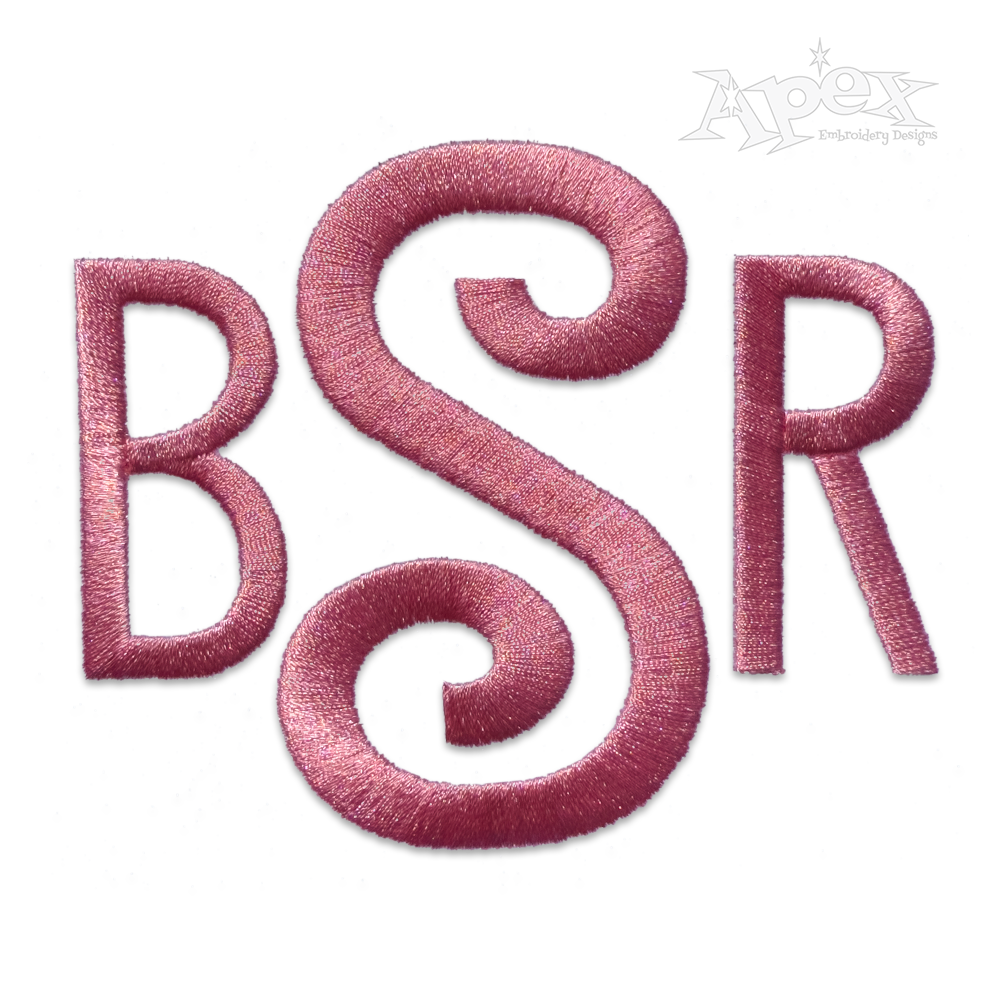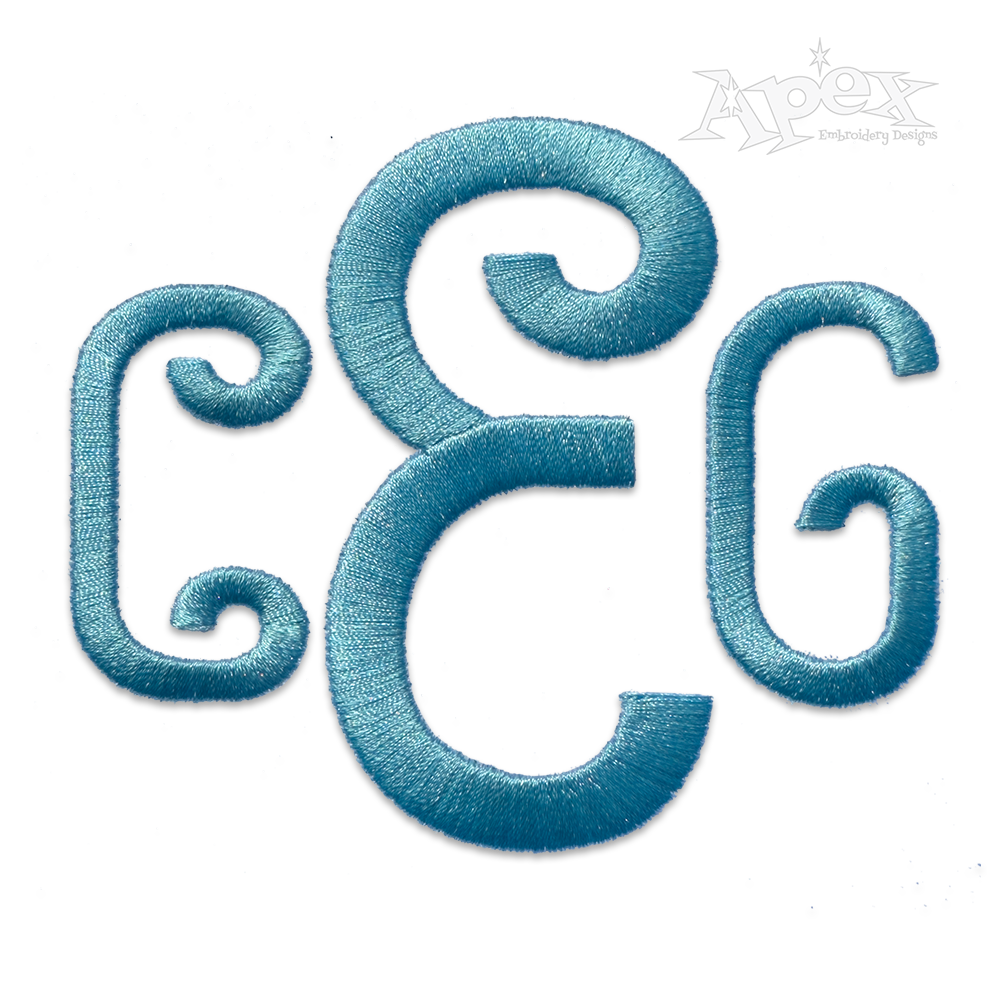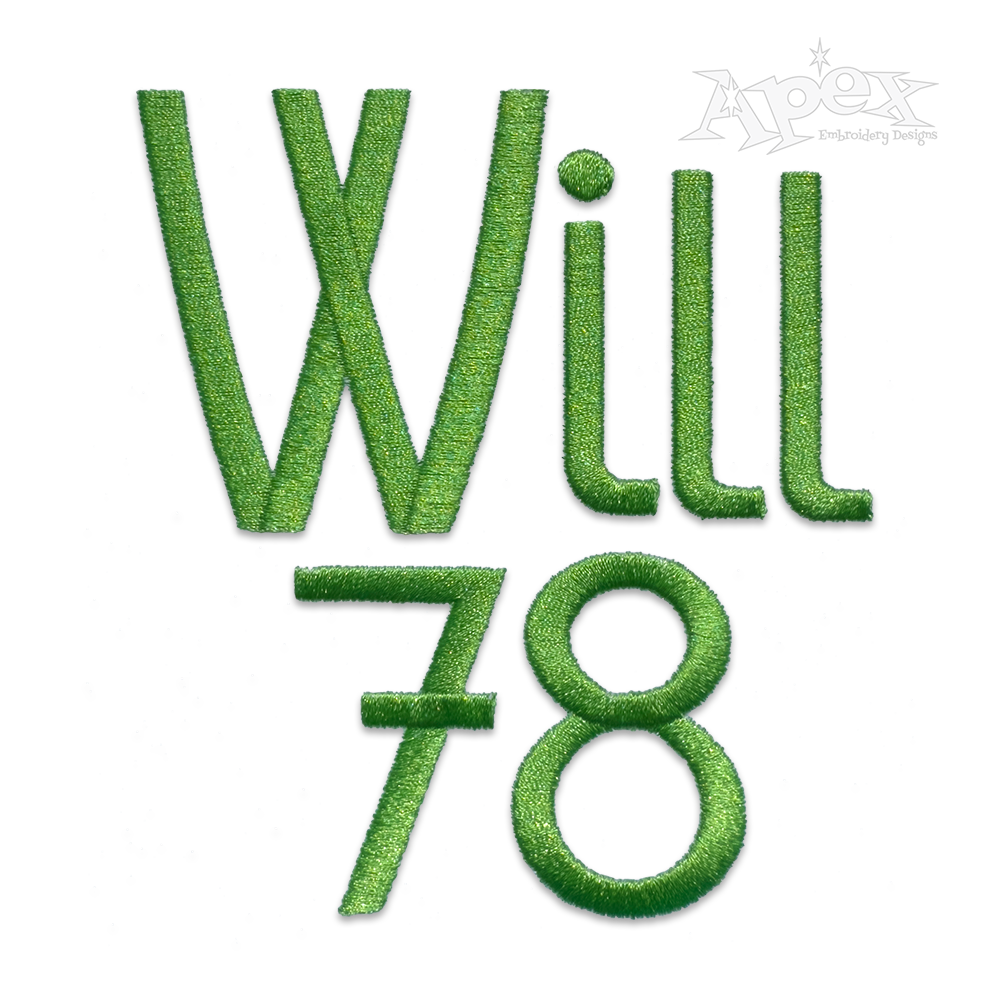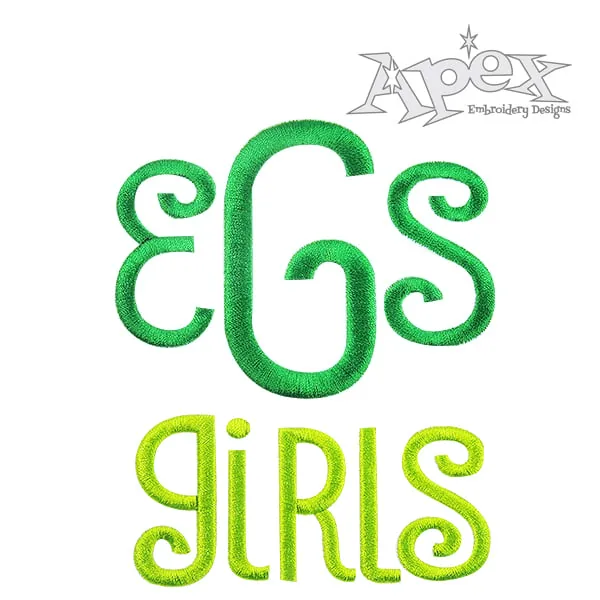
Baby Girl Embroidery Fonts
When digitizing the Baby Girl embroidery font, we set out to capture the playful innocence and tender warmth of early childhood. Every glyph dances with joyful, spiral flourishes and sweet swashes, echoing the natural whimsy of ribbon curls and soft nursery lullabies. Balanced with an unwavering, bold legibility, this charming alphabet was thoughtfully designed to transform everyday baby textiles into treasured family heirlooms, making every personalized keepsake feel like a lovingly handcrafted work of art.
Project Ideas for Baby Girl Embroidery Fonts
- Heirloom Layette & Onesies: Stitch a darling initial right over the heart of soft organic cotton bodysuits or embroidered footie pajamas for an unforgettable shower gift.
- Personalized Swaddle Blankets & Crib Quilts: Create a grand centerpiece with a 3-inch name or birth monogram embroidered into washed linen or waffle-knit cotton.
- Bespoke Nursery Keepsakes: Personalize canvas nursery storage bins, customized rocking chair pillows, and custom diaper caddies.
- Milestone Photography Props: Combine the clean numerals with the letterforms to stitch milestone blanket markers that celebrate baby's growth month by month.
- Toddler Sun Hats & Beach Totes: Add durable, playful lettering to wide-brim baby sun hats, seersucker swim covers, and personalized preschool tote bags.
- Bodysuit & Romper Chests: Center the 1-inch or 2-inch lettering approximately 1.5 to 2 inches below the front neckline for balanced, photogenic placement.
- Receiving Blanket Corners: Position the monogram diagonally 3 to 4 inches inward from the corner tip, framing the edge elegantly when folded or swaddled.
- Peter Pan Collars: Utilize the petite 0.5-inch scale centered along the rounded collar edge to add a whisper of bespoke charm without overpowering delicate lace or trim.
- Bibs & Burp Cloths: Position the design horizontally across the lower center third to preserve visibility and minimize wear during daily use.
Baby Girl Embroidery Fonts Craft & Letterform Details
Beneath the sweet, curly exterior of the Baby Girl font lies precise digitizing engineering. Each curl is meticulously planned to guide the needle through graceful arcs, minimizing sharp pivots that can pull or pucker soft baby knits. The satin stitch columns boast variable stitch densities, subtly narrowing into jaunty terminal points and swelling gently through the primary stems. This deliberate variation delivers a raised, glossy dimension that catches the nursery light from every angle. Thoughtful micro-underlay provides firm architectural stability while maintaining the soft, pliant hand-feel essential for garments that touch tender newborn skin.